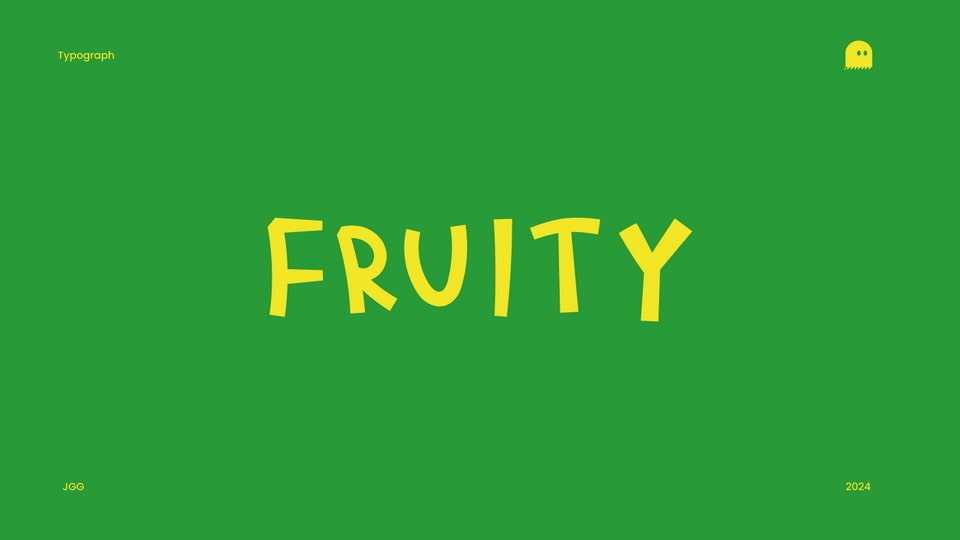
Download Fruity Sans font, a playful and funny hand-crafted typeface that radiates friendliness and warmth and designed with a light, bouncy feel.
Designer: João G. Gonçalves